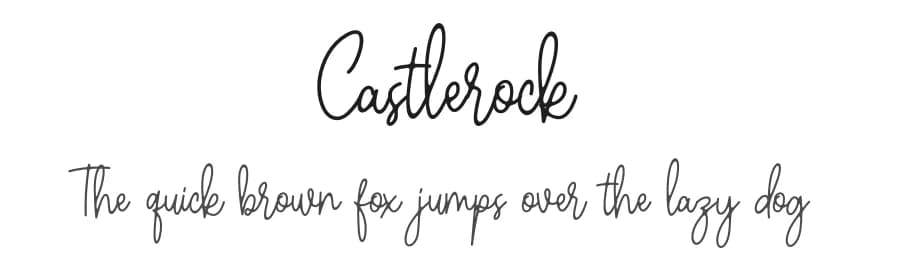
About Castlerock Font
R. Studio
Castlerock Font is a script font that shines as a display or heading face. Pair it with a clean sans-serif or serif font for body text β the contrast creates a clear hierarchy while the two styles stay balanced and easy to read.
Castlerock Font